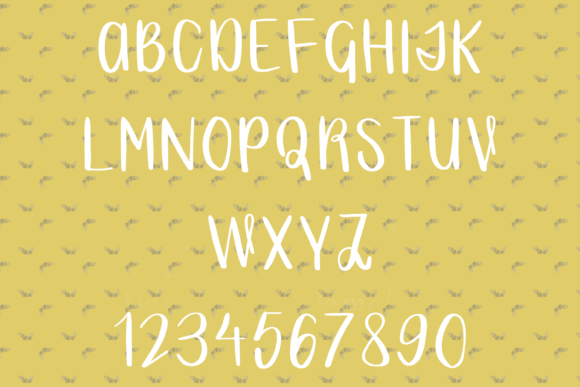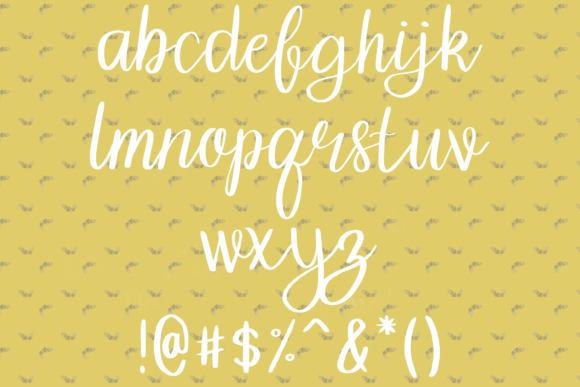
Gráinne Font
About Gráinne Font
The Gráinne is a part of the calligraphy fonts family.
It is fun and modern, and can be used for wedding invitations, birthday cards and scrapbooking.